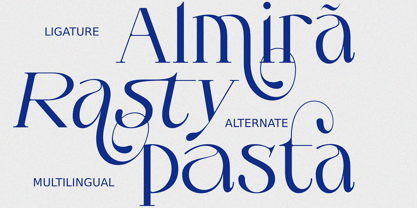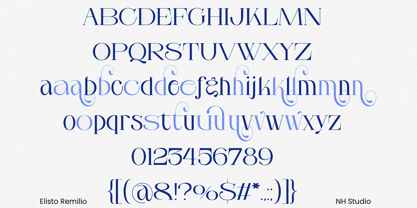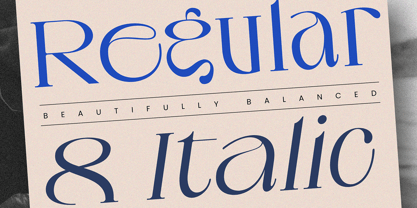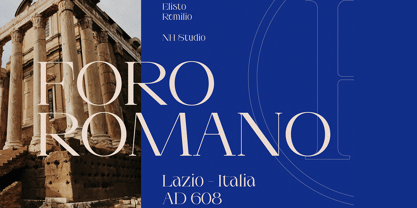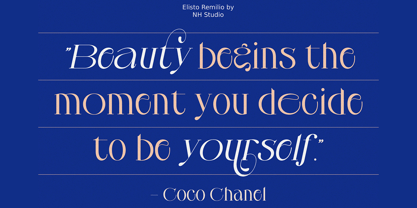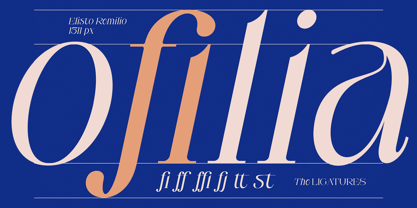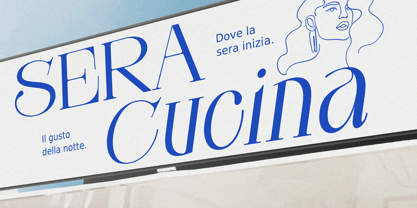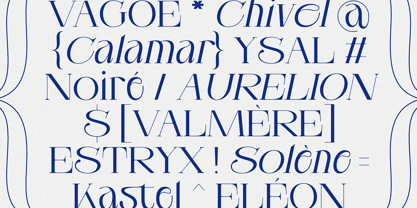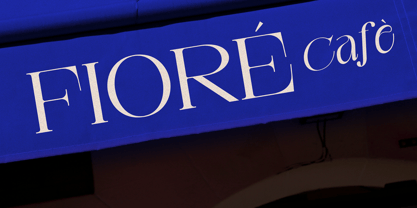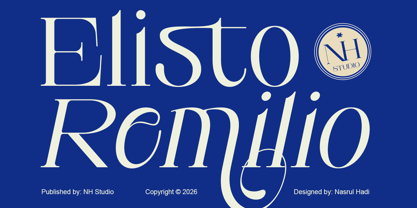
Elisto Remilio
The Elisto Remilio Font Family was designed by Hadi Nasrul and published by NH TypeStudio. Elisto Remilio contains 2 styles and family package options. More about this family
Introducing Elistro Remilio: A Typeface for Timeless Elegance
Make a lasting impression with Elistro Remilio, the perfect blend of classic sophistication and modern versatility.
Designed to captivate, Elistro Remilio’s high-contrast strokes and graceful curves bring an air of luxury to any project.
This Elisto Remilio typeface features elegant, sharp serifs and a beautiful contrast between thick and thin strokes, creating a visual rhythm that is both classical and cutting-edge. It is an ideal choice for luxury magazine mastheads, high-end jewelry branding, and sophisticated editorial layouts where a “quiet luxury” aesthetic is paramount for success.
The Elisto Remilio font includes unique character flourishes that allow it to function as a standalone logo or a powerful headline. Pair this Elisto Remilio typeface with minimalist photography and a neutral color palette to let its refined silhouette command the spotlight.
Whether you’re crafting a premium brand identity, an elegant editorial layout, or an engaging website, Elistro Remilio ensures your design stands out. Each character is carefully shaped for strength, balance, and readability, while its true italics add fluidity and visual interest, making your text effortlessly stylish.